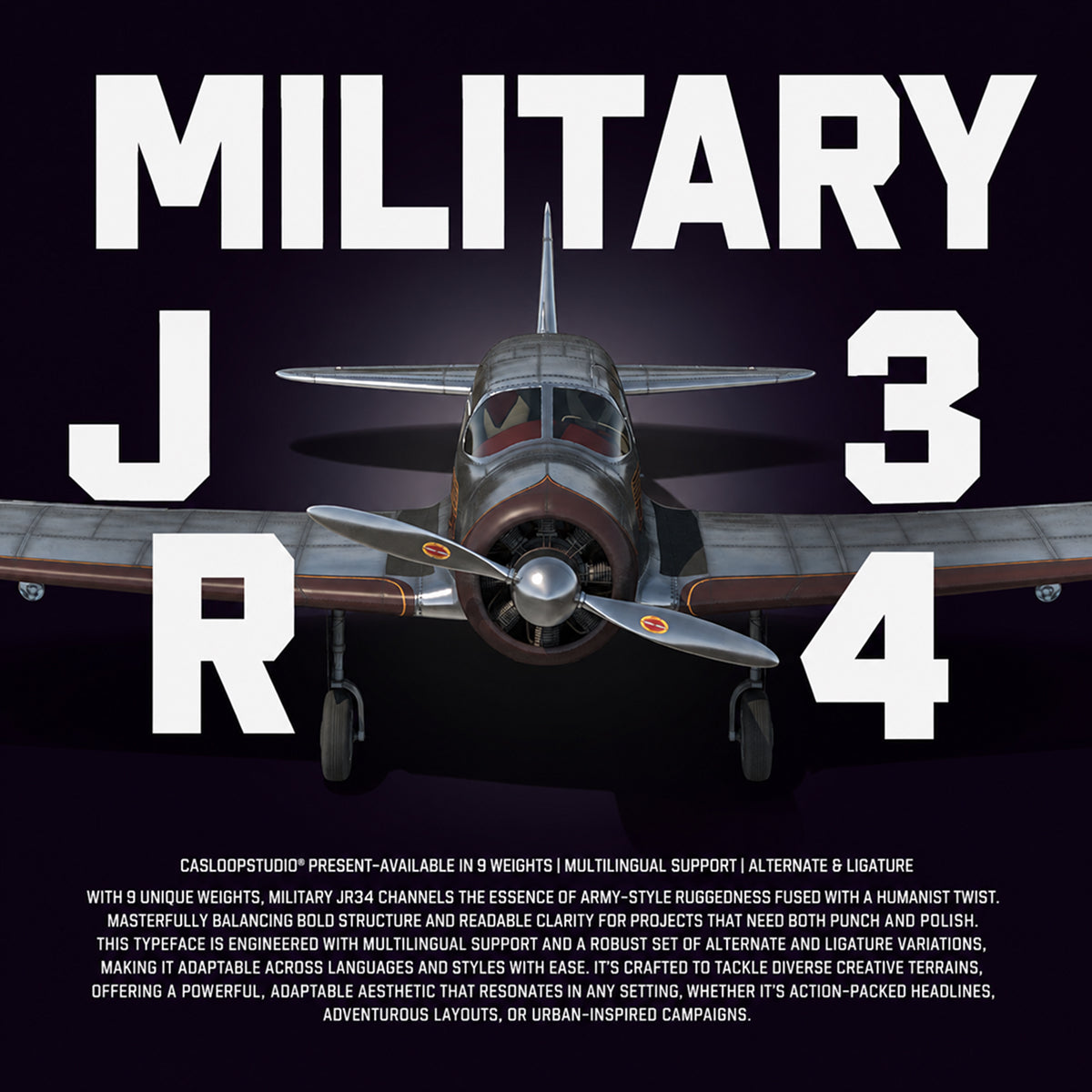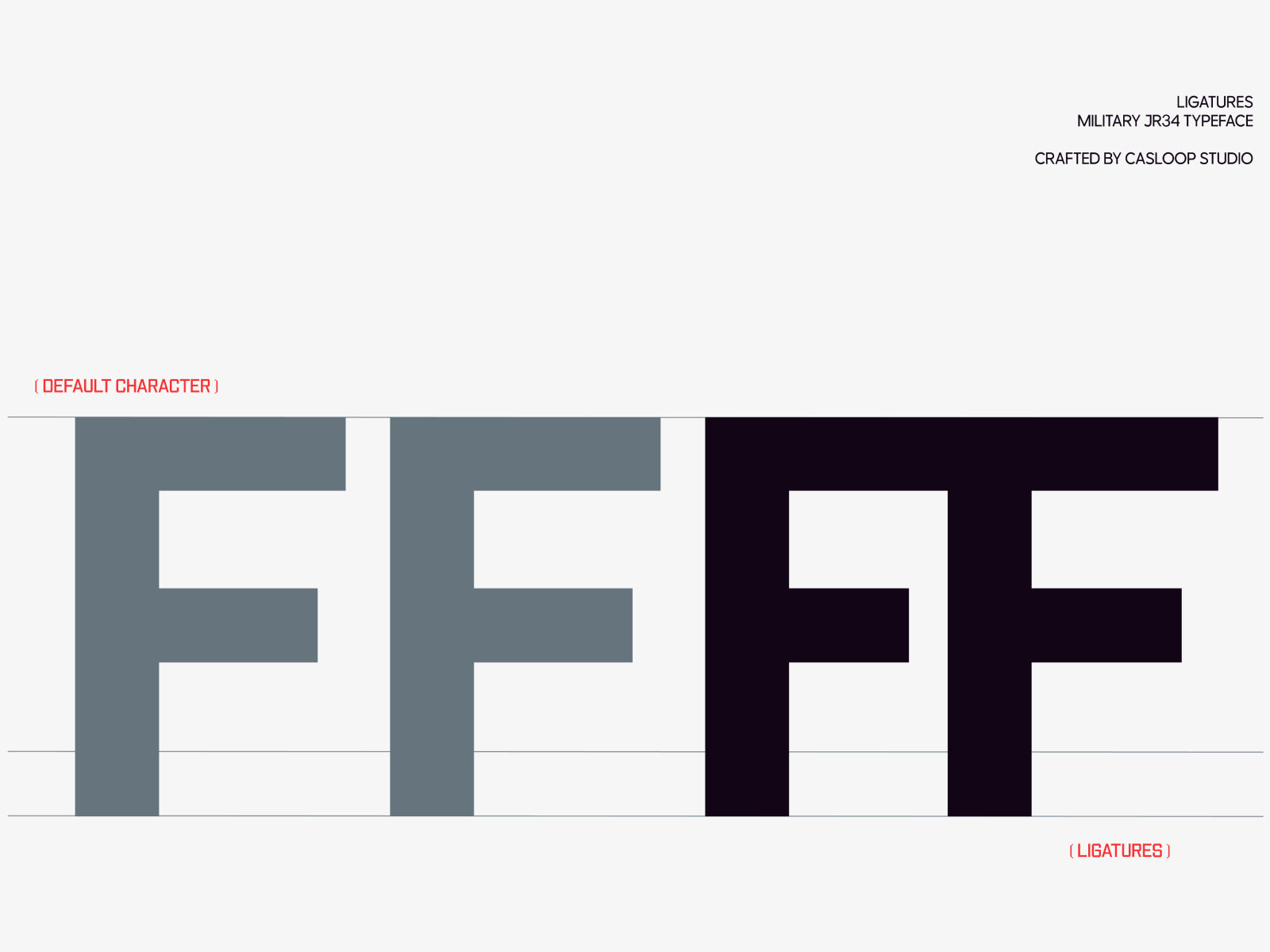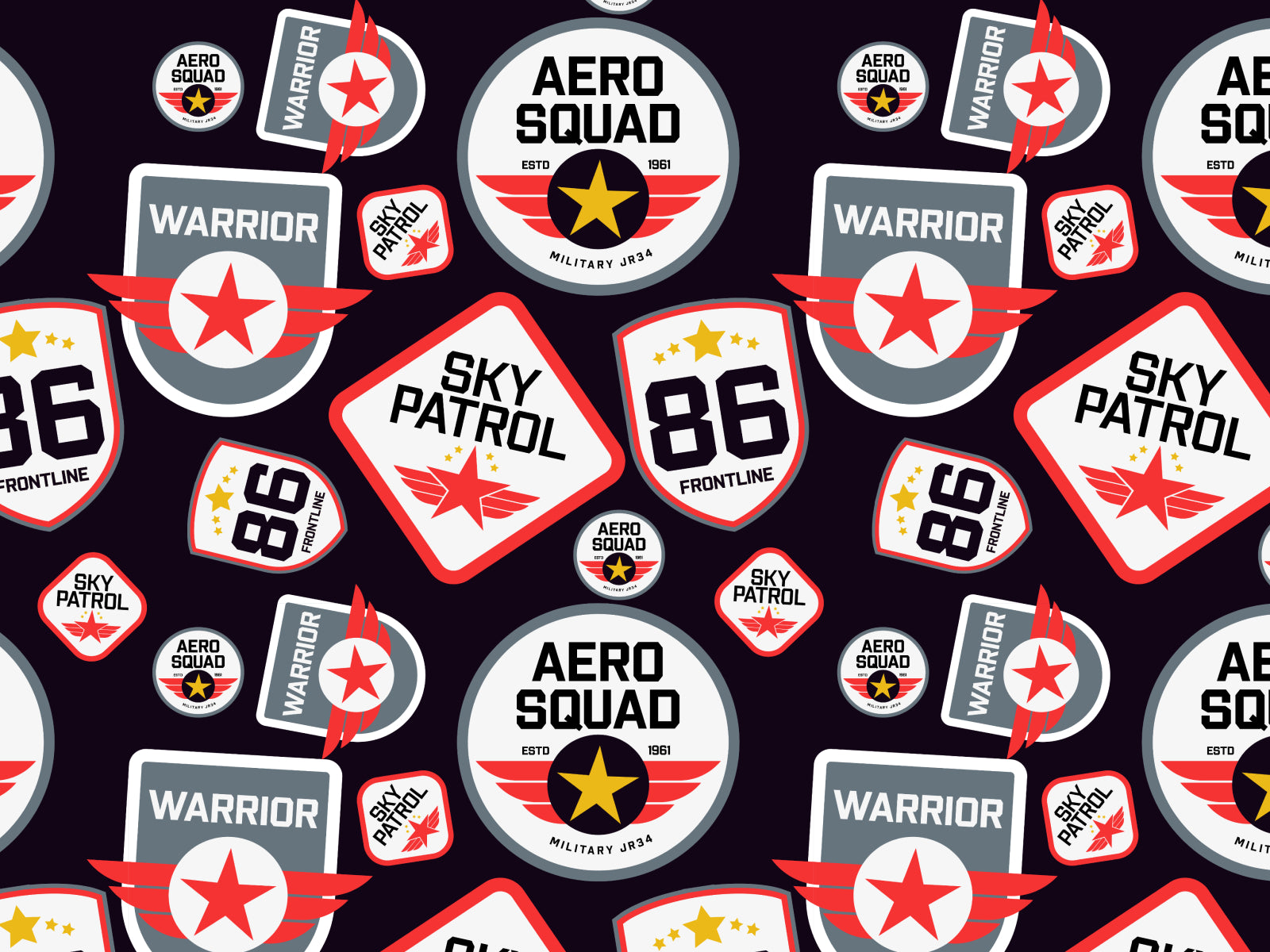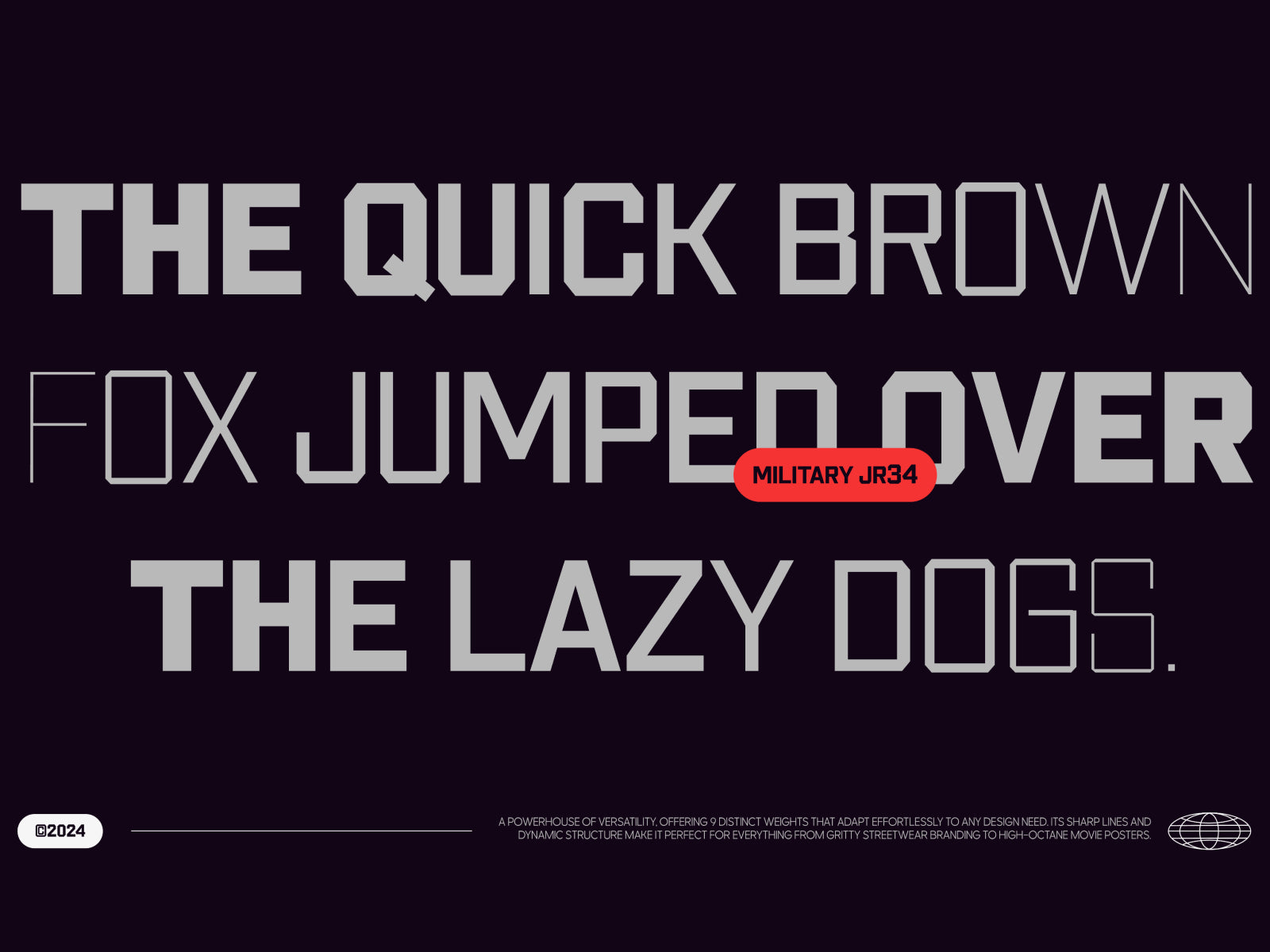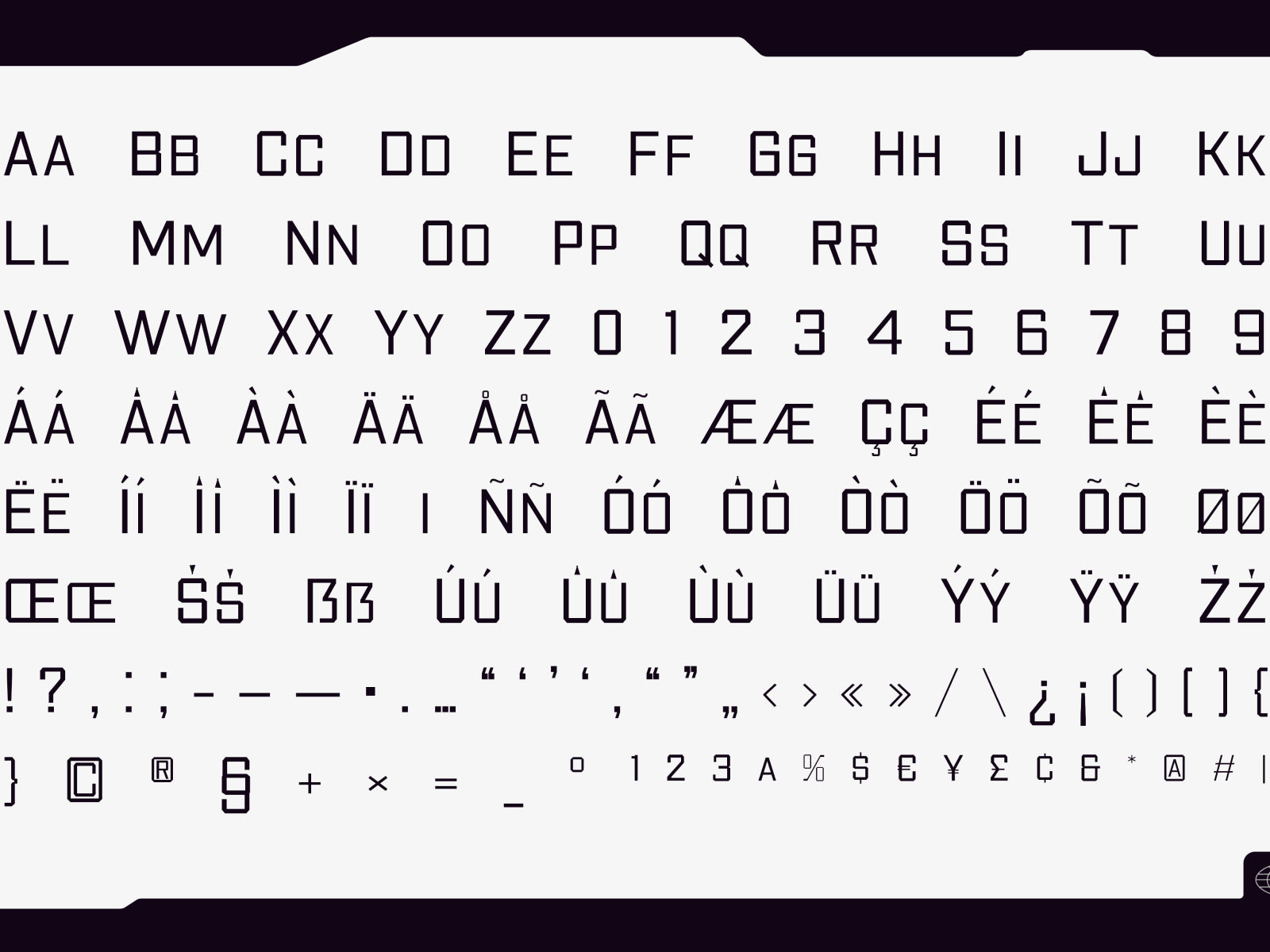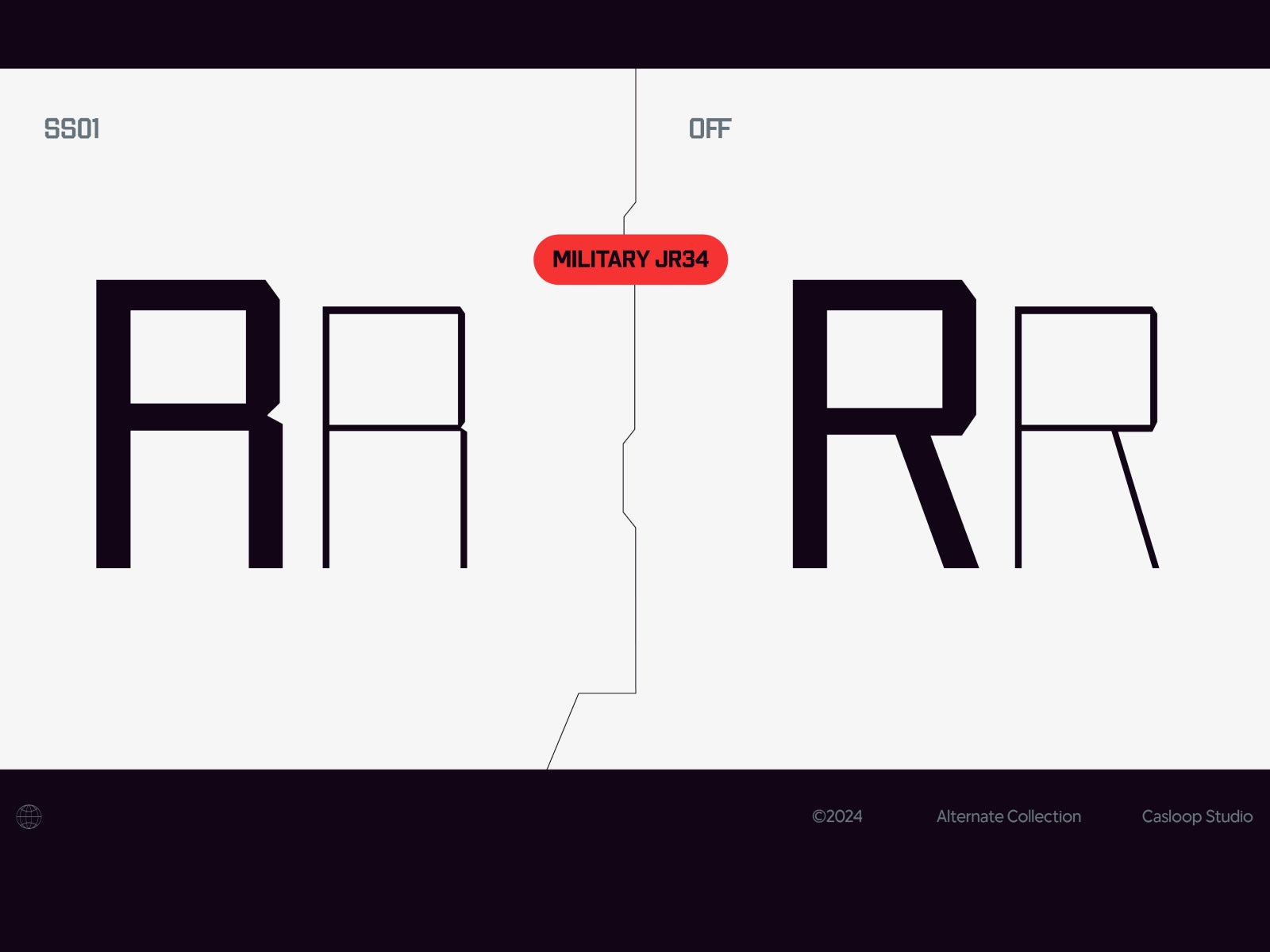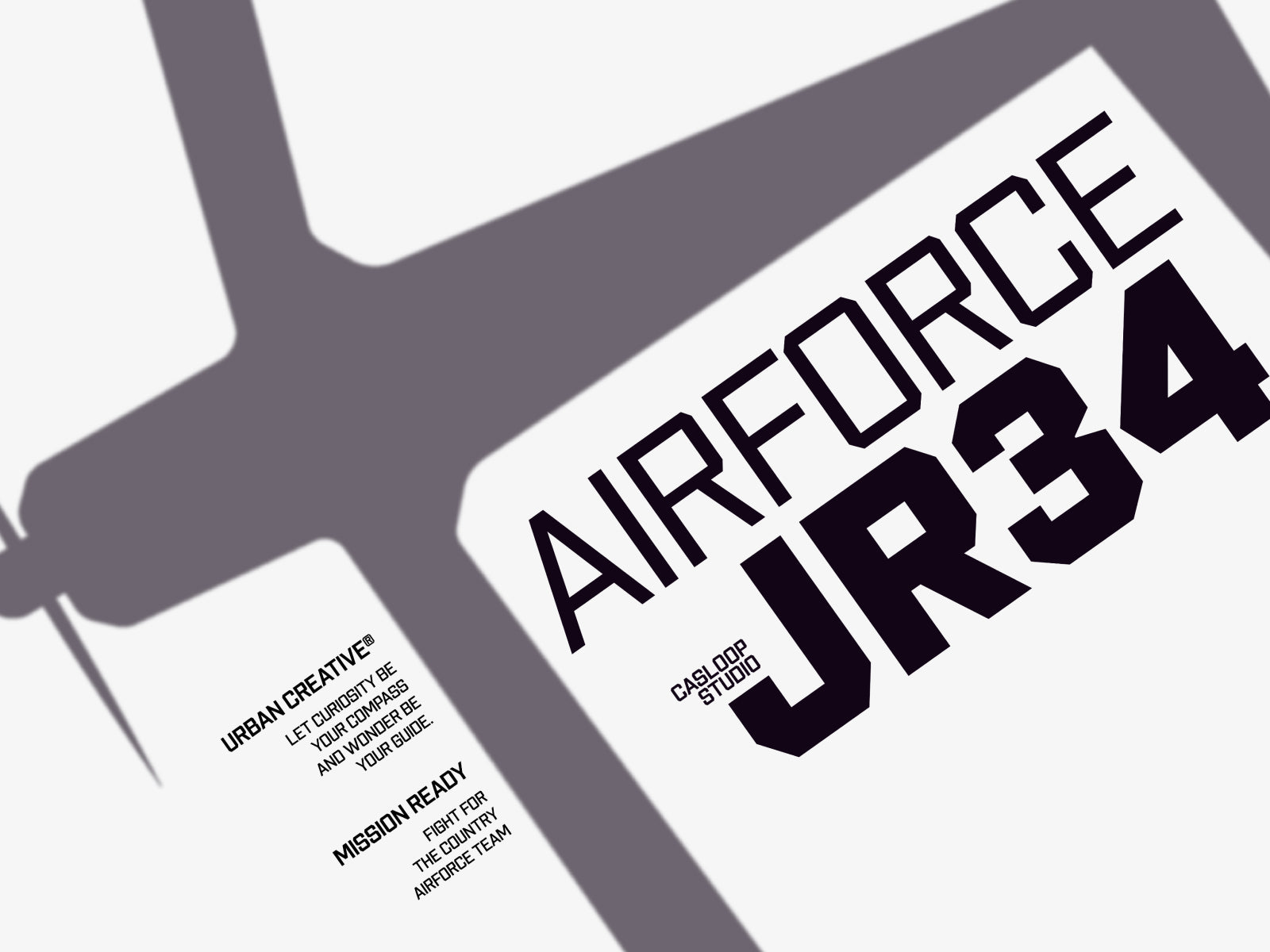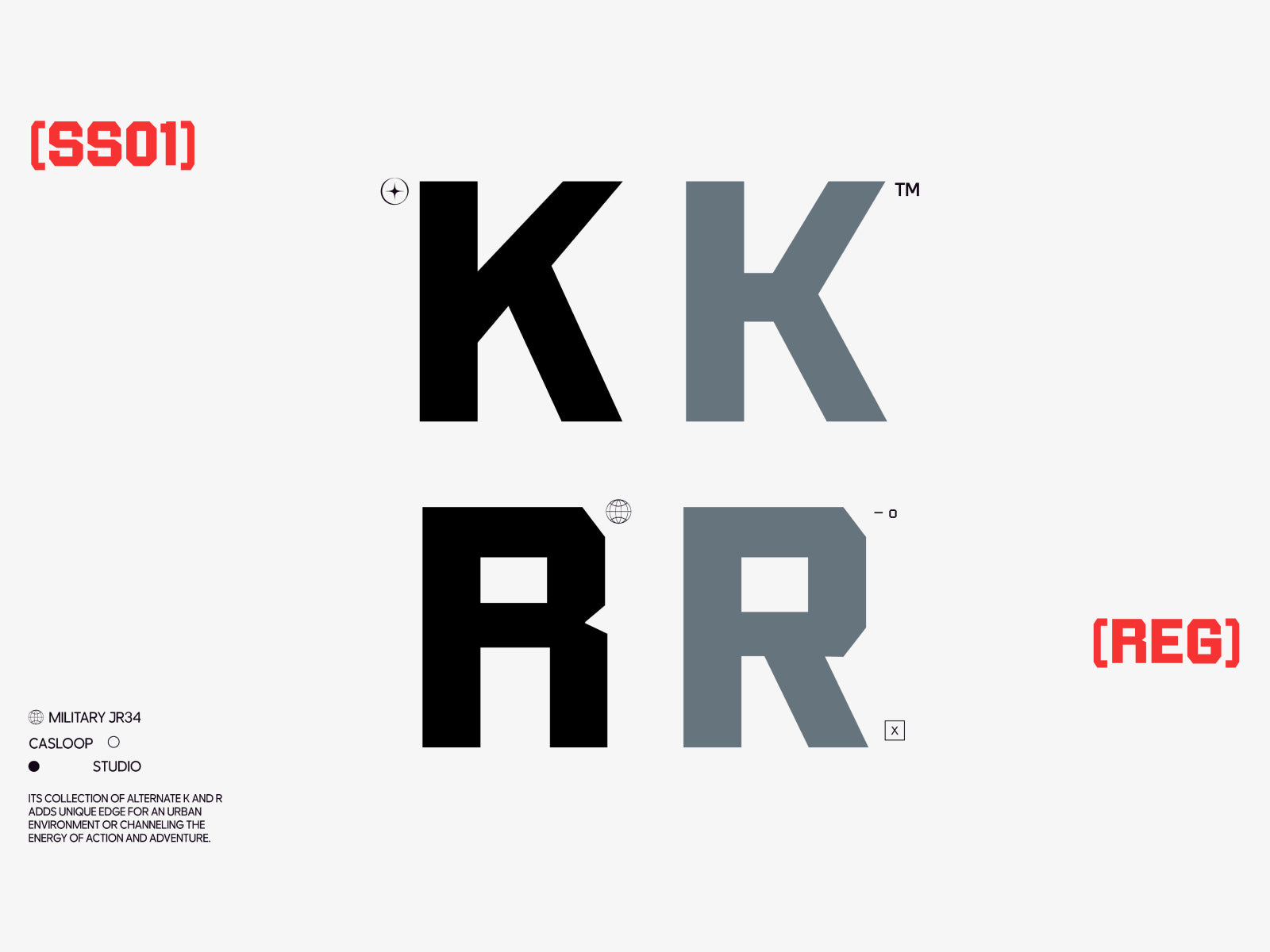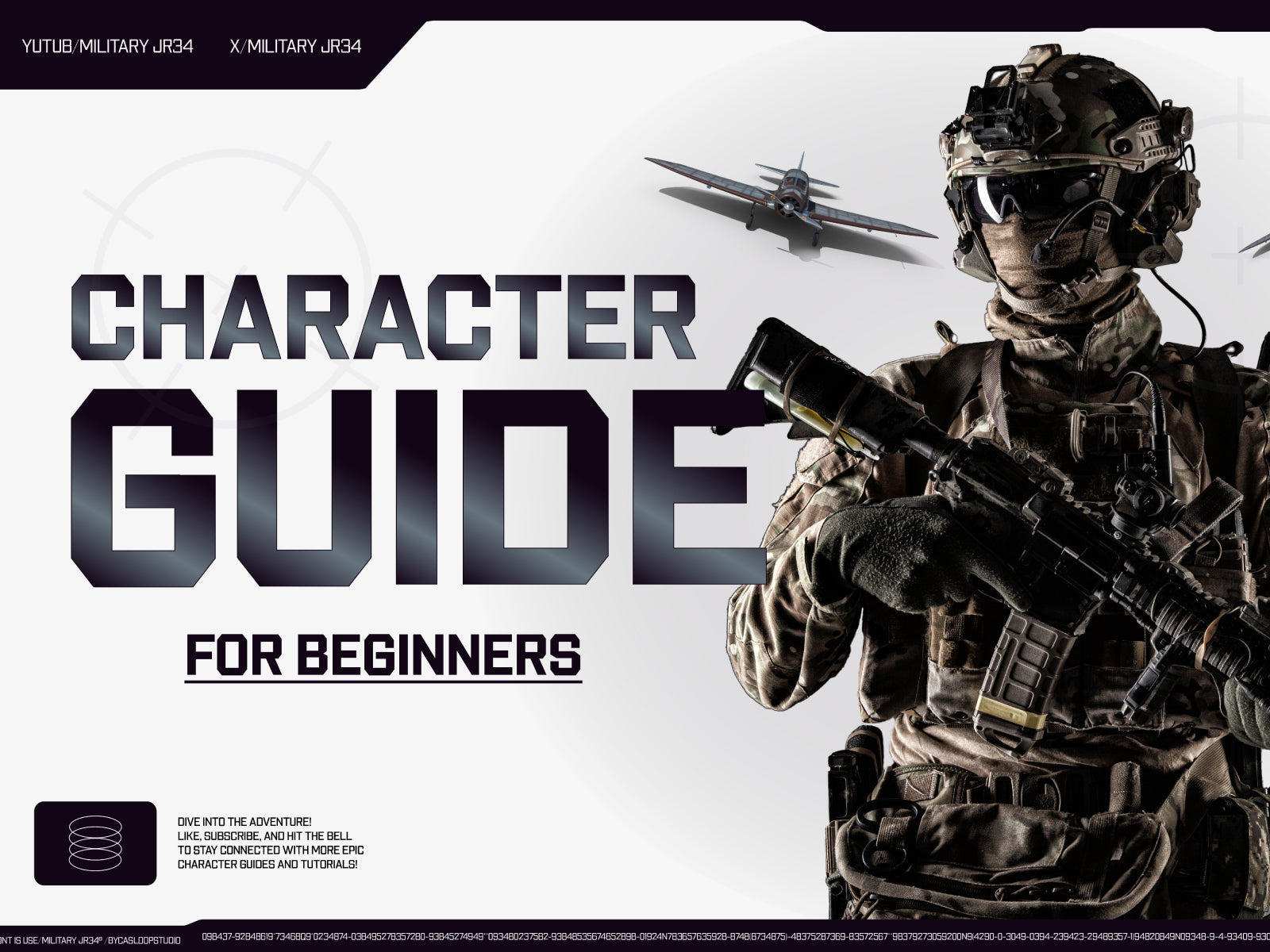
Military JR34 - Adventure Fonts
Introducing Military JR 34 — the ultimate typeface that combines robust, structured shapes with a contemporary, versatile flair. This Sans Serif font, rigid and military - inspired, is crafted to give your designs a standout presence, effortlessly blending strength with sophistication.
Military JR 34’s adaptable font family spans from Thin to Black weights, offering a range of expressive options that are perfect for bold, high-impact branding. Its legible, blocky shapes make it a powerful choice for digital media visuals, athletic apparel, and even automotive-themed packaging. Whether you’re designing for campus posters, sportswear, or construction signage, this typeface commands attention.
Military JR34 - Adventure Fonts is a Sans Serif typeface featuring robust, structured shapes with a contemporary design. It includes a versatile font family ranging from Thin to Black weights and supports multiple languages, making it suitable for various branding and design applications.